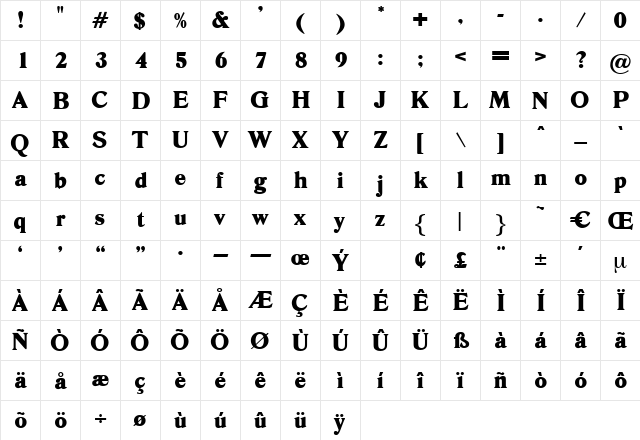
OktaveExtraBold Regular
Design Context for OktaveExtraBold Typeface
OktaveExtraBold is a composed and adaptable typeface that performs quietly and consistently across a wide range of design contexts. The heavy weight commands attention and anchors typographic hierarchies.